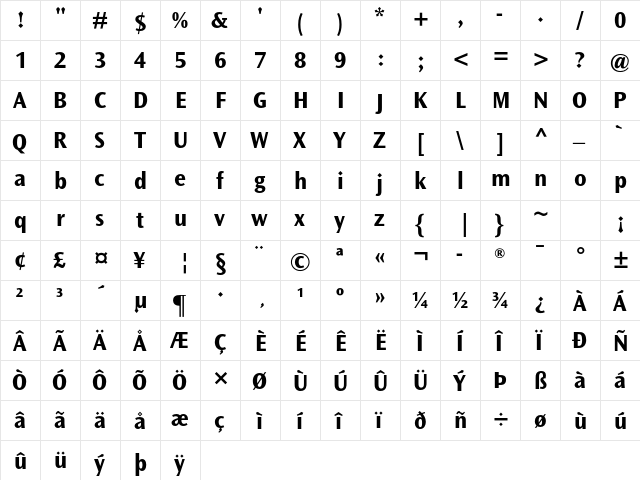
Ocean Sans Std Bold Font Preview
Ocean Sans Std Bold
Ocean Sans Std Bold Font Details
| Designer | Chong Wah |
Design Context for Ocean Sans Std Typeface
Ocean Sans Std offers clean, dependable letterforms without strong stylistic allegiance, making it a practical choice for designers who need flexibility. Its bold stroke weight gives it real presence on the page.